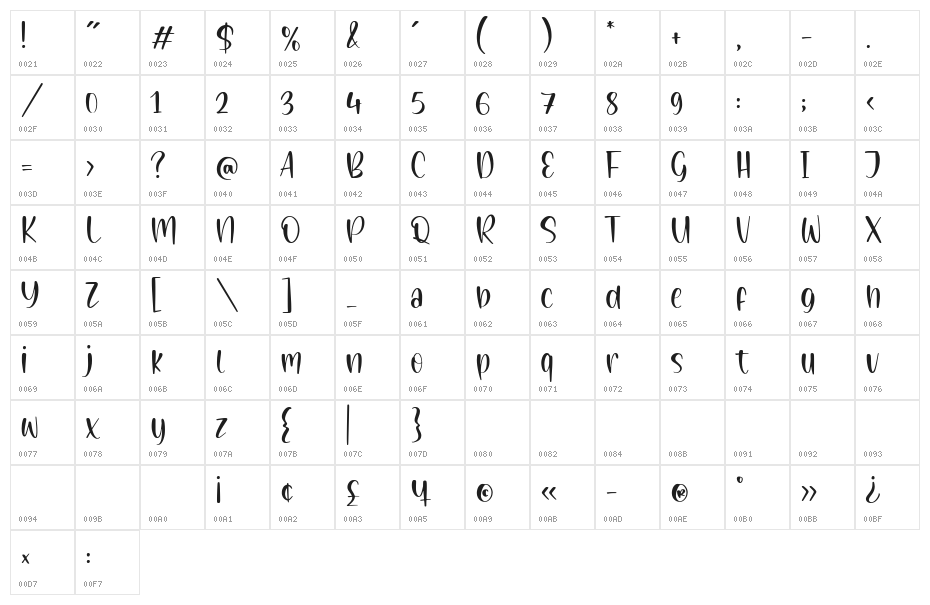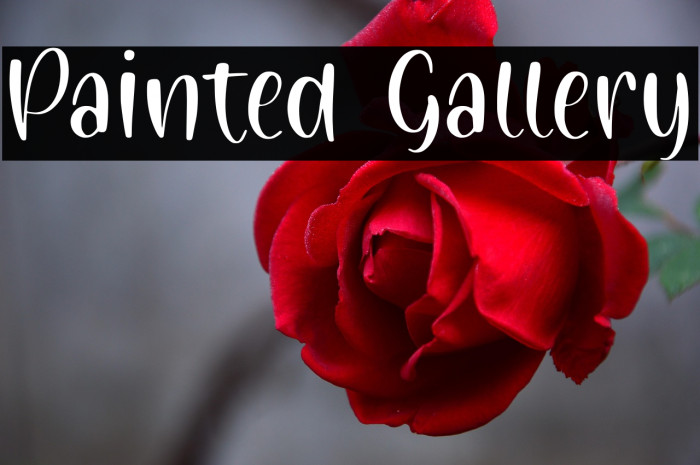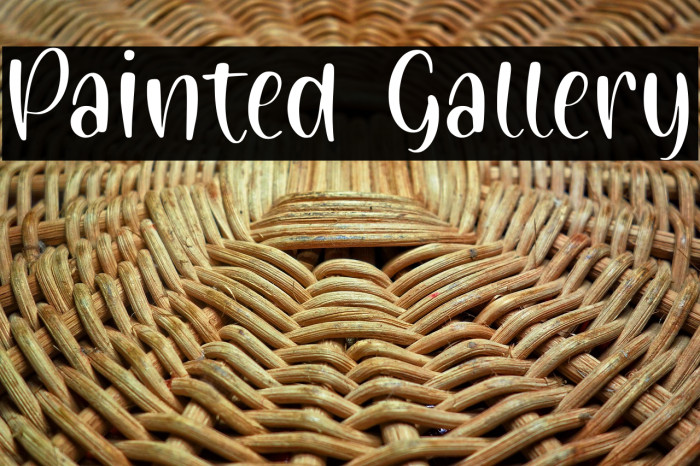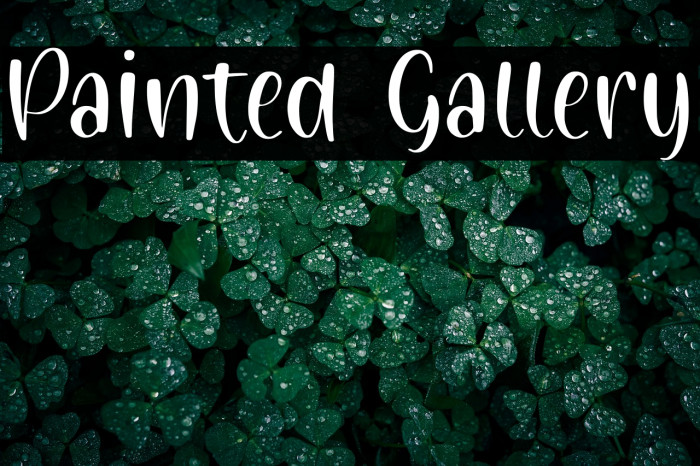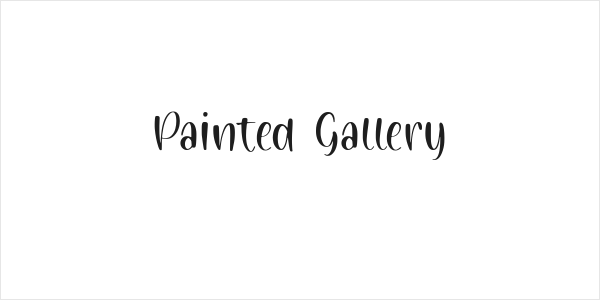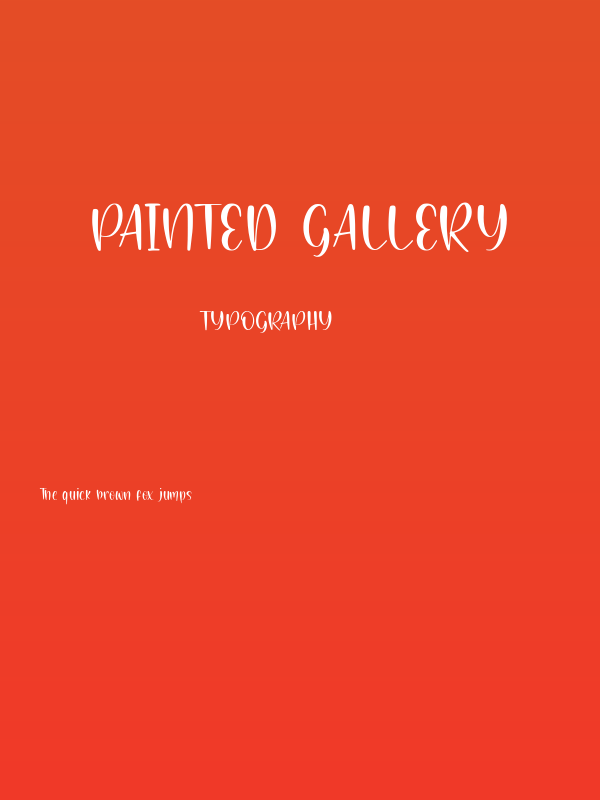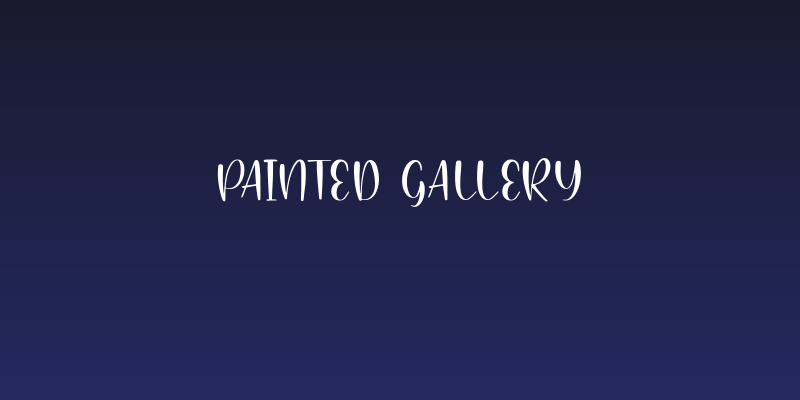
Painted Gallery Font
Painted Gallery Description
This font exudes a playful and artistic vibe, characterized by its brush-like strokes and fluid, handwritten style. The letters are slightly slanted, giving a dynamic and lively appearance. The uppercase and lowercase characters maintain a consistent flow, with rounded edges and varying stroke widths that mimic the natural movement of a paintbrush. The numbers and special characters complement the alphabet with the same artistic flair, making it suitable for creative and informal designs.
| Proposed Projects | Ideal for greeting cards, invitations, posters, and branding projects that require a personal and artistic touch. |